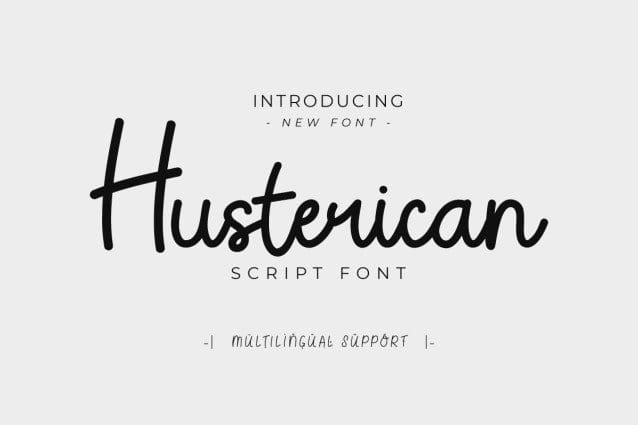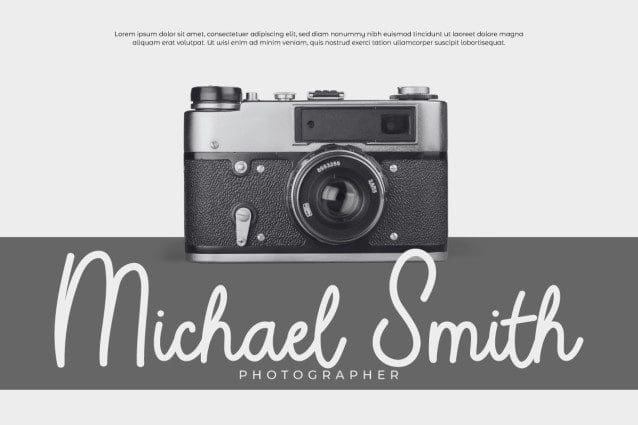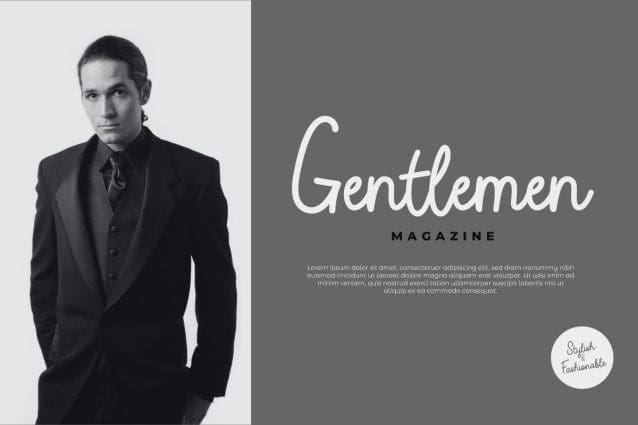
Husterican Script Font
Husterican Script Font, a luxury script that has its own unique style & modern look. This typeface is perfect for an elegant & luxury logo, book or movie title design, fashion brand, magazine, clothes, lettering, quotes, and so much more.